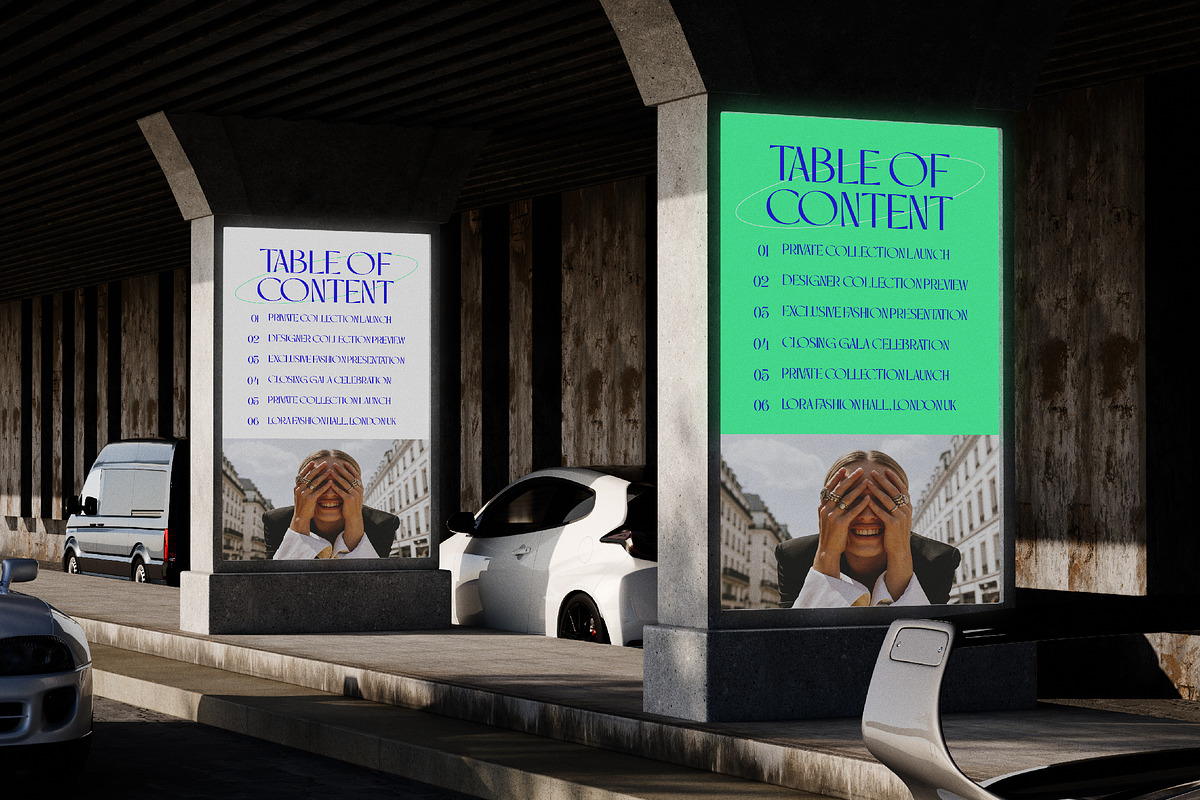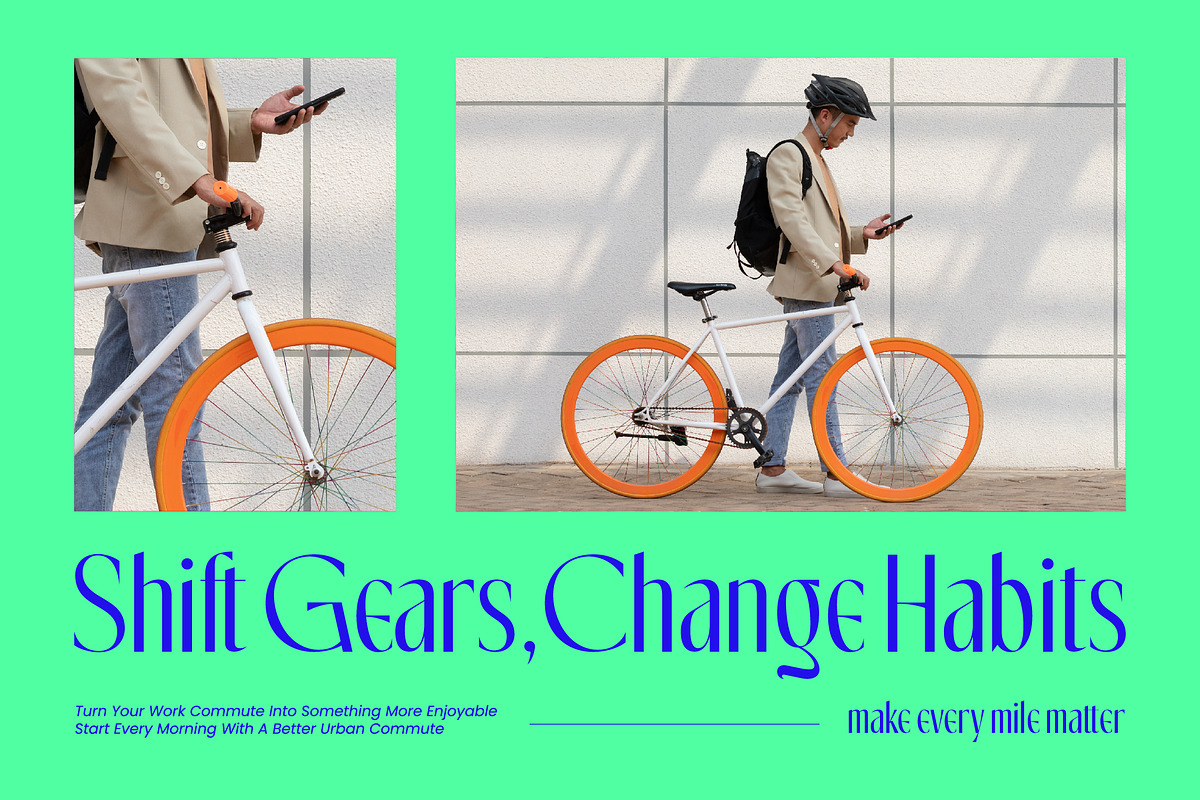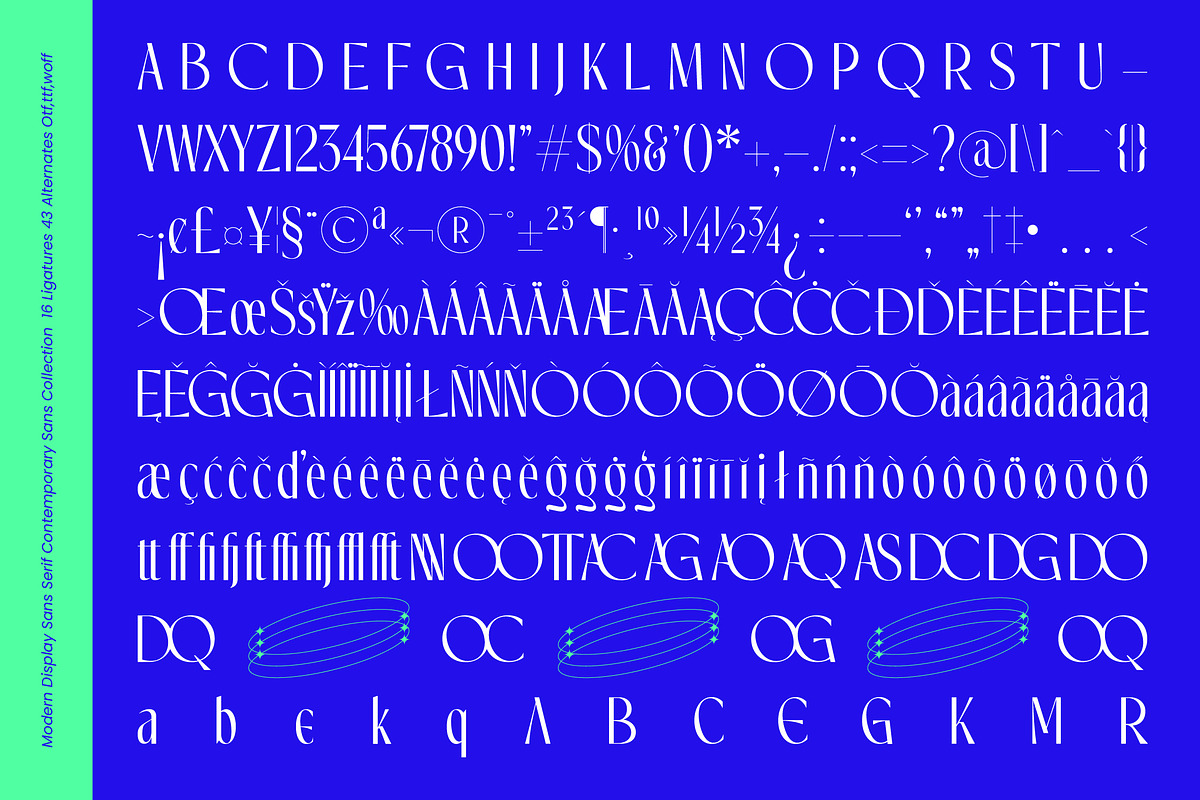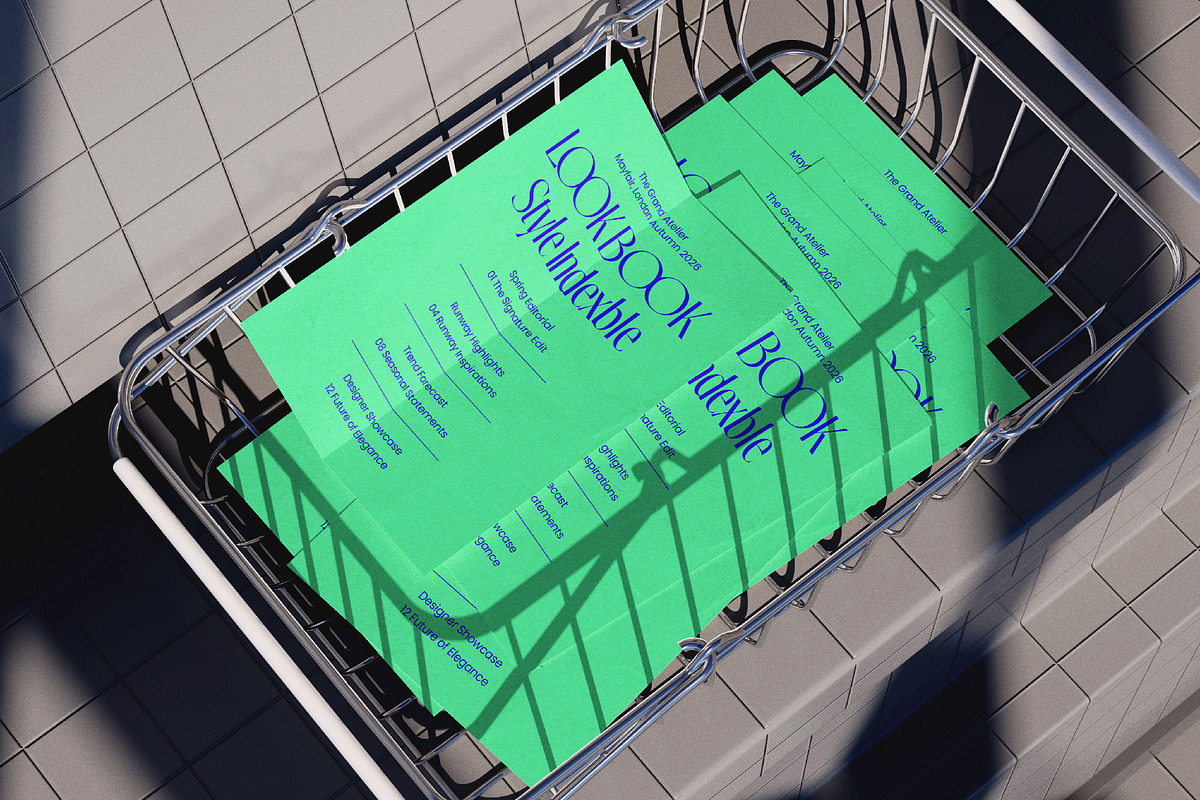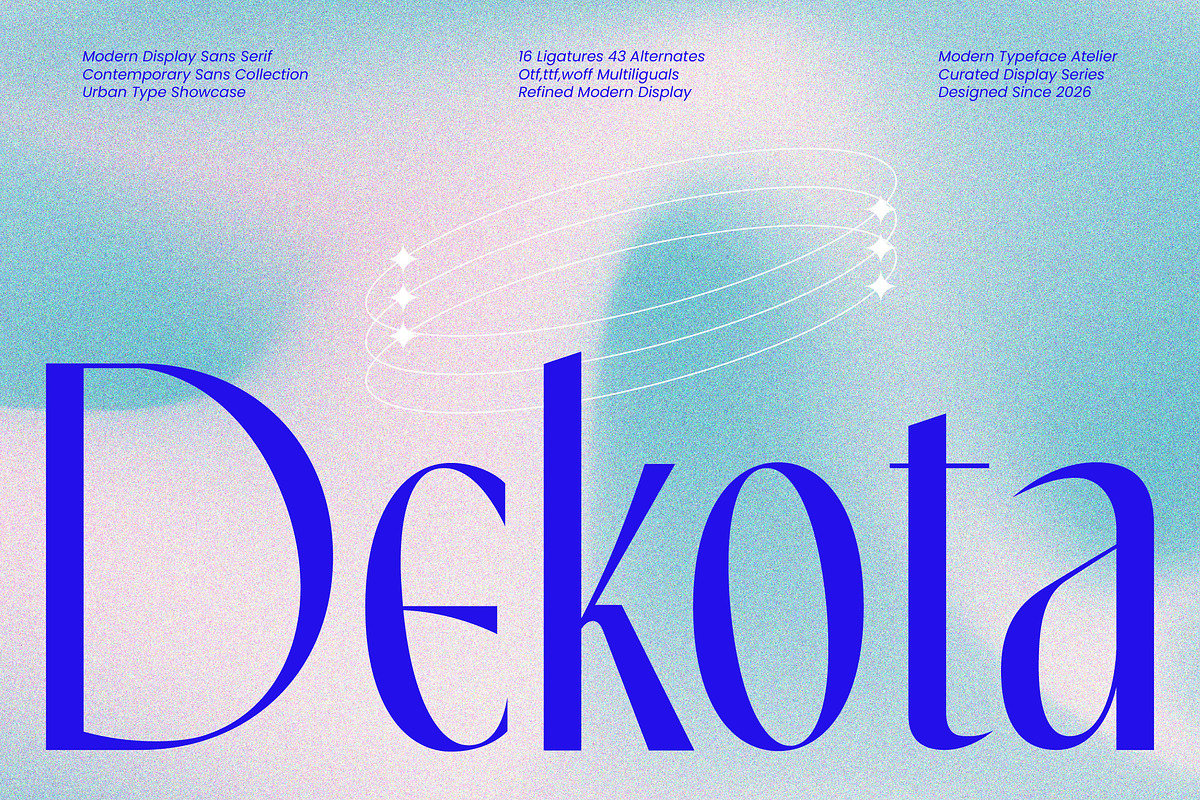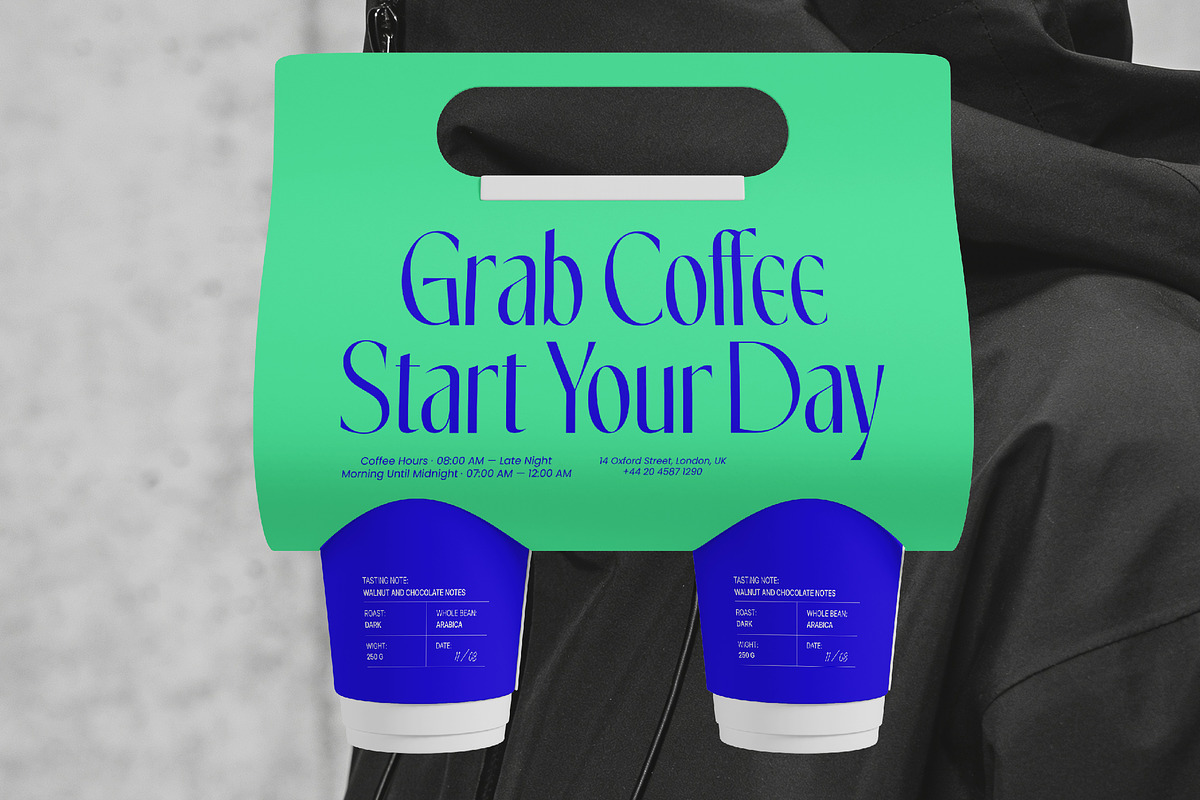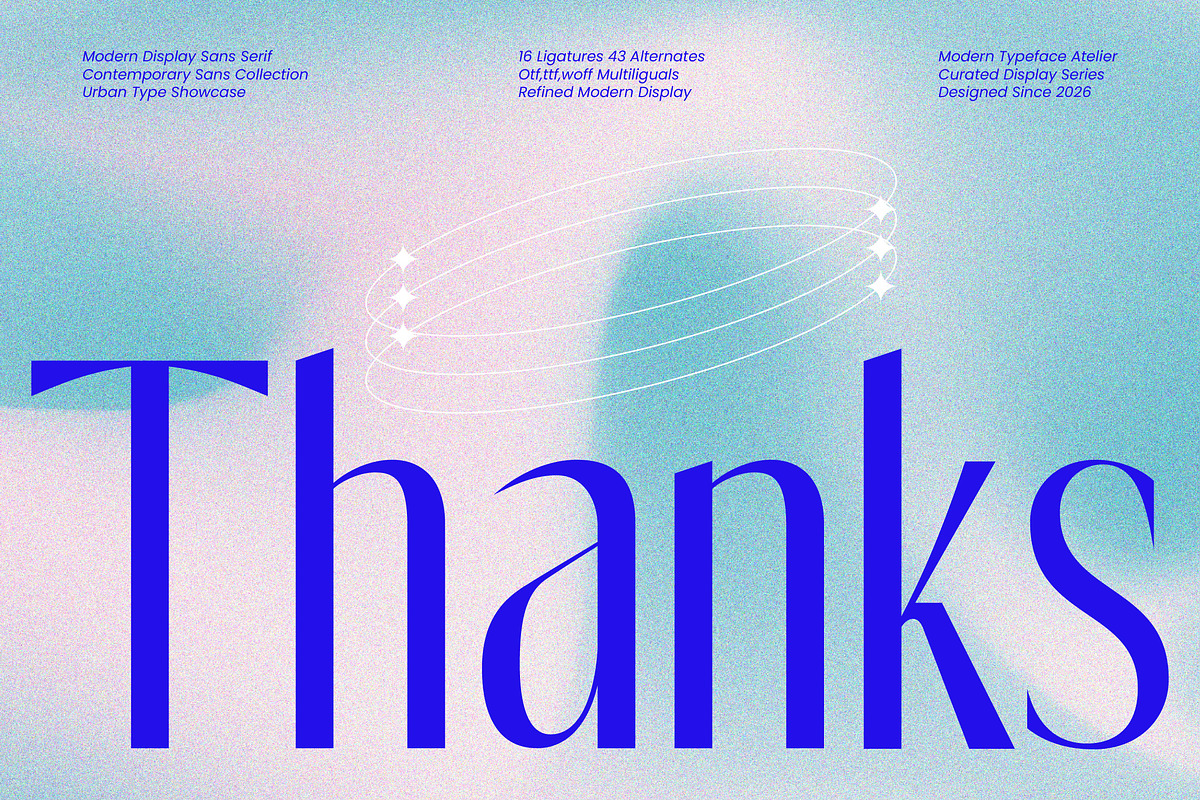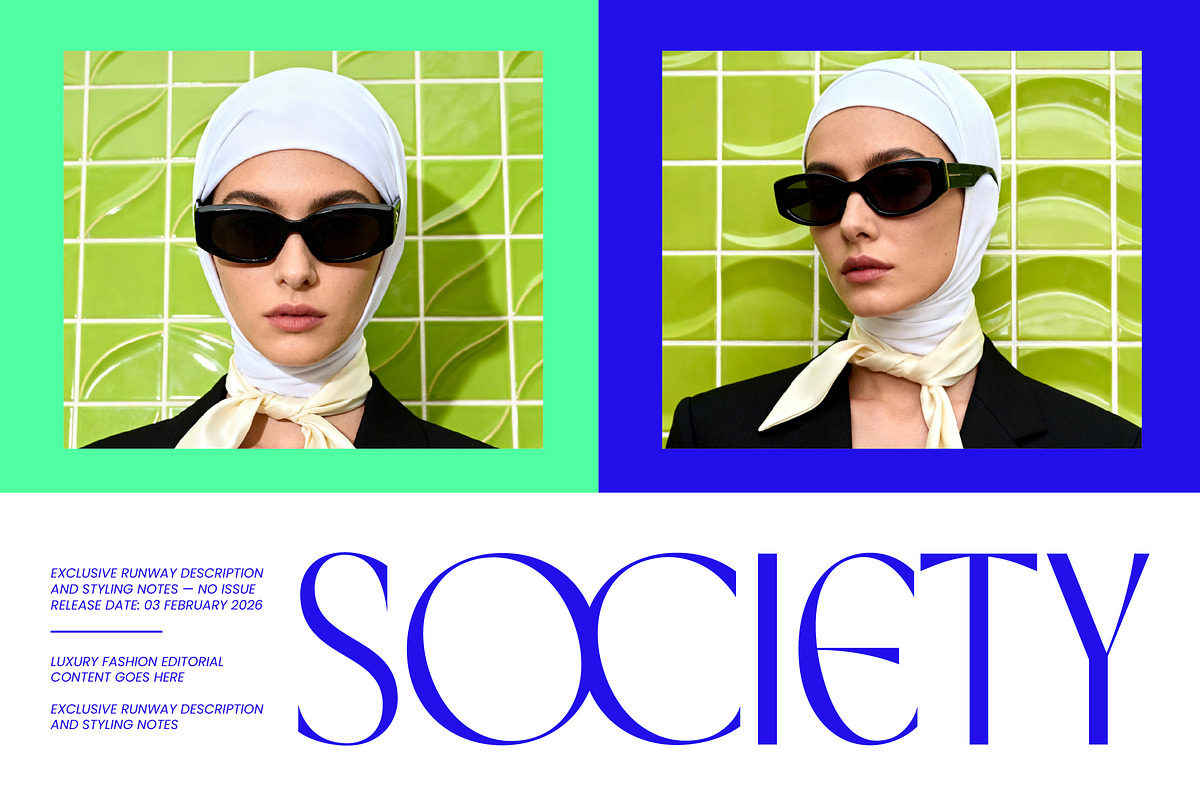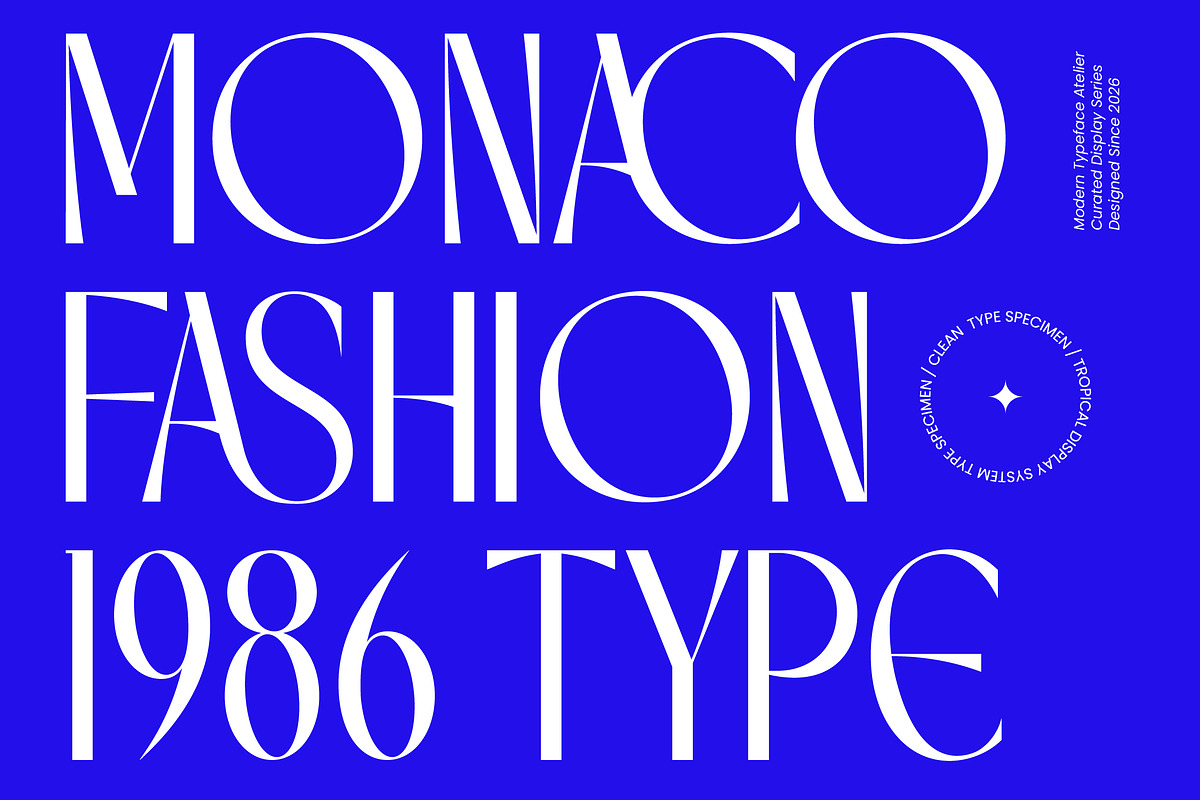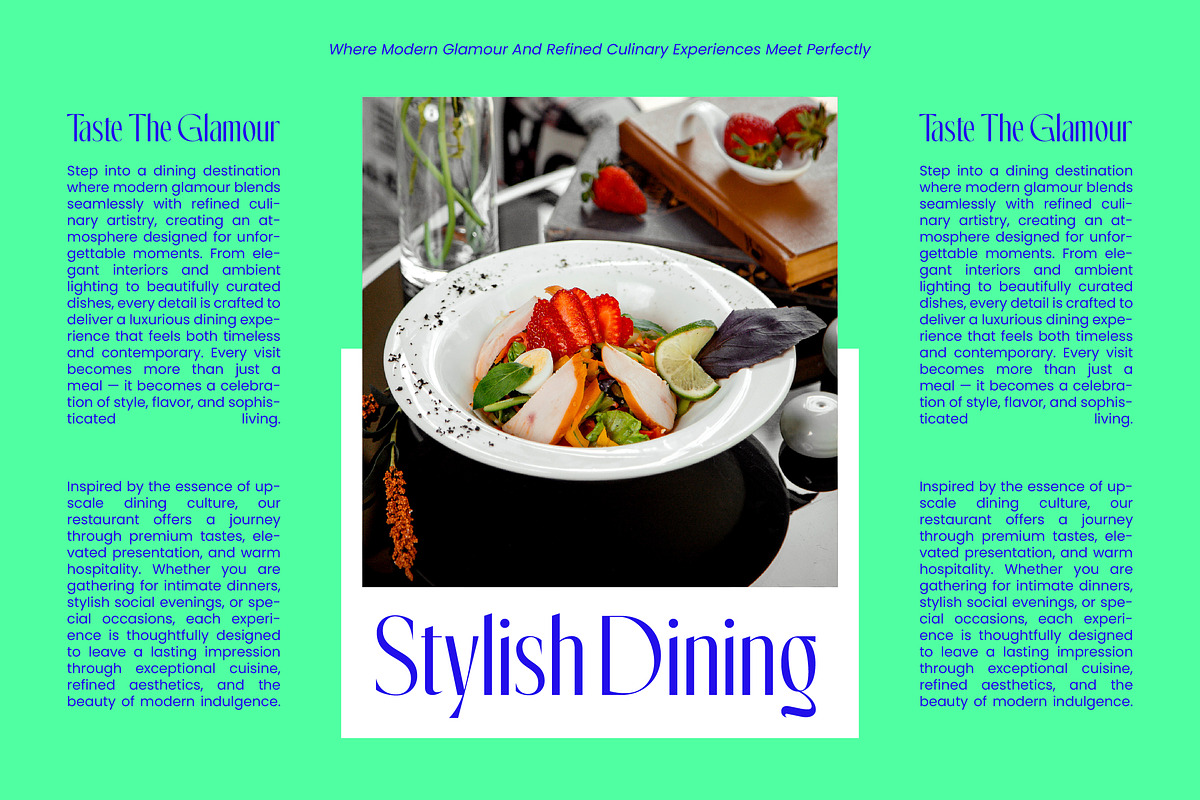
Dekota Modern Display Sans Serif
Dekota – Modern Display Sans Serif , Elevate your design identity with a typeface that embodies sophisticated modernity and sharp aesthetic precision. Dekota – Modern Display Sans Serif is a masterclass in balance, merging high-contrast strokes with a clean, contemporary structure that commands attention. Its architectural forms and refined curves provide an upscale feel, perfect for designers looking to inject a sense of luxury and exclusivity into their visual compositions. By blending urban flair with a minimalist ethos, this font ensures your message is delivered with maximum clarity and unrivaled style.
Empower your creative workflow with an expansive suite of technical features designed for high-end production and dynamic layouts. Dekota – Modern Display Sans Serif comes equipped with 16 ligatures and 43 alternate characters, allowing for bespoke typographic arrangements that feel custom-made for every project. With its extensive multilingual support, Dekota – Modern Display Sans Serif adapts seamlessly across global markets, making it incredibly versatile for international projects. Whether you are working in digital or print environments, its robust file formats guarantee a flawless performance across all modern platforms.
Master the art of premium visual storytelling by applying this typeface to your most ambitious and lucrative branding endeavors. Dekota – Modern Display Sans Serif is the ideal choice for luxury branding, high-fashion editorial design, and premium product packaging where elegance is paramount. Its distinctive personality makes it perfect for social media headlines, cinematic posters, and urban-themed lookbooks where a bold, memorable statement is required. The font’s versatility ensures it functions as a standout display face while maintaining the professionalism needed for corporate identities and sophisticated web design.
Invest in a timeless professional asset that bridges the gap between contemporary trends and classic typographic refinement. Dekota – Modern Display Sans Serif offers a curated experience for the discerning creative, providing the tools necessary to build a powerful brand presence. Its unique character set and polished finish make it an essential addition to any modern designer’s toolkit. By choosing Dekota – Modern Display Sans Serif, you are selecting a visionary typeface that defines the future of graphic design and elevates every creative output to a world-class standard.